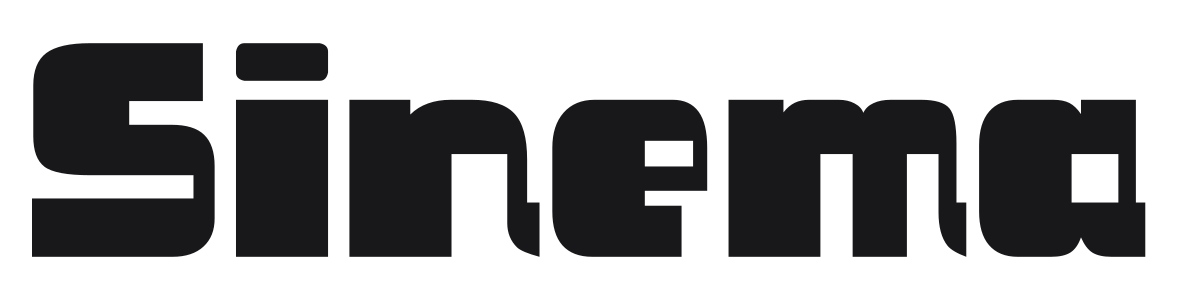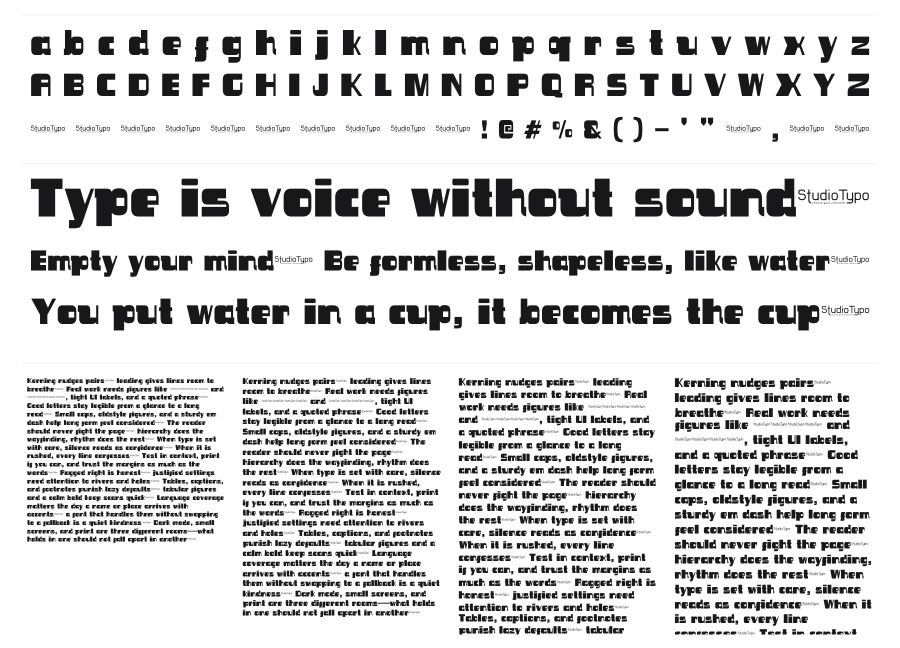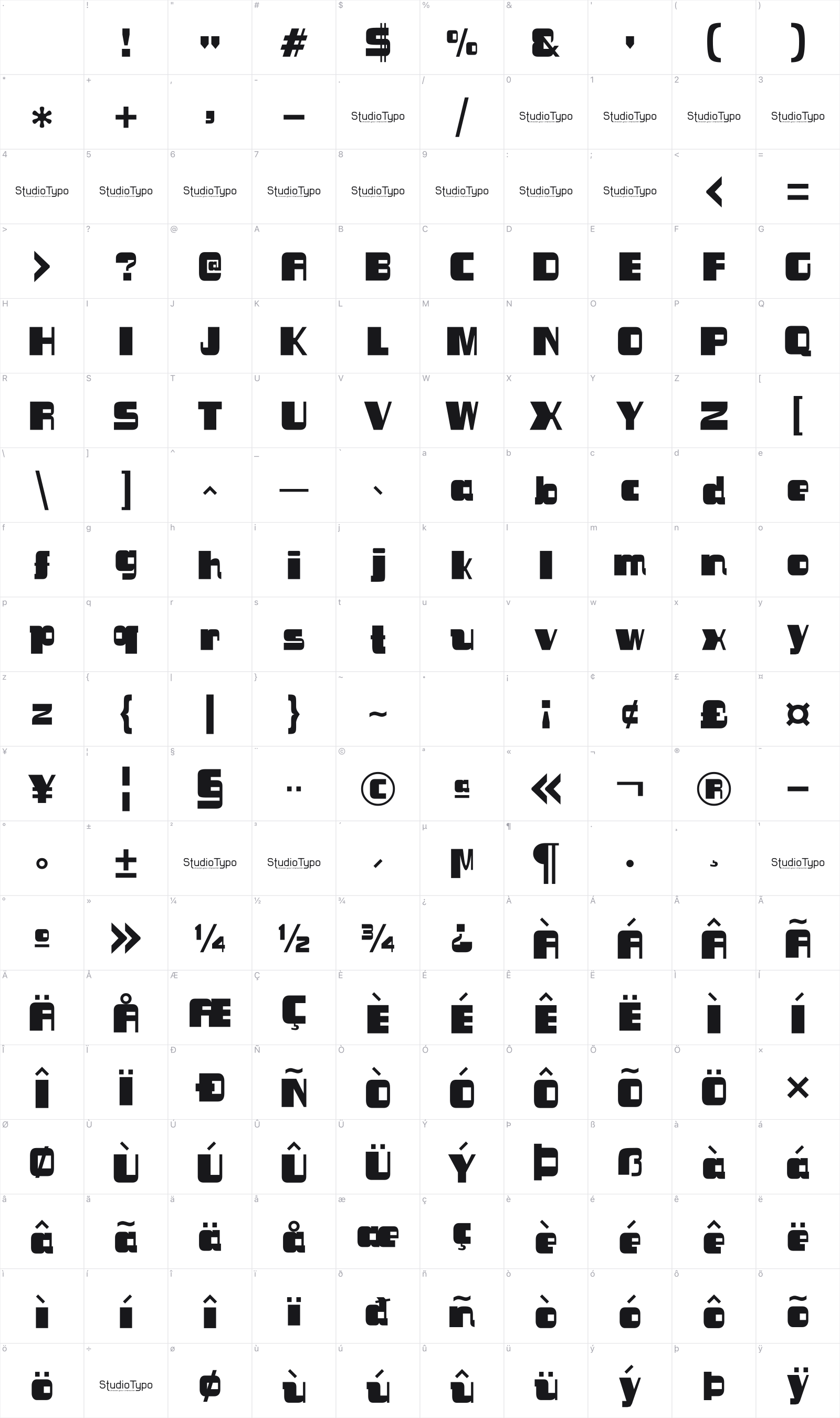
Sinema
Sinema is a heavy, wide display sans with thick modular characters that recall 1970s cinema and poster typography. Rounded interior corners and notched cutouts give it a constructed, almost architectural quality that stands apart from simple bold fonts. Best deployed large, where its dense weight and retro energy hit hardest.